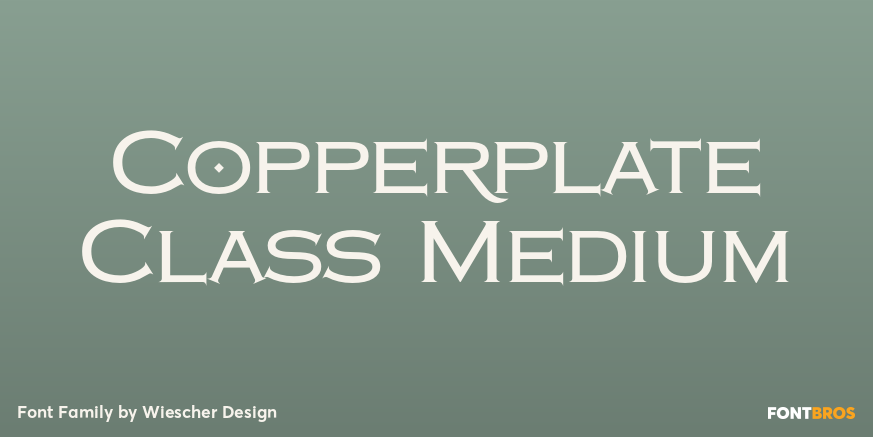
Copperplate Class Medium
Copperplate was the classic nineteenth century engravers typeface, consisting of capitals and small caps only. Among others (for example Deberny & Peignot) F. W. Goudy\’s cut for ATF around 1901 is probably the most widely known. Copperplate typefaces…